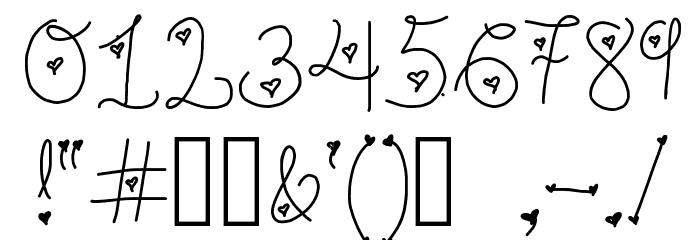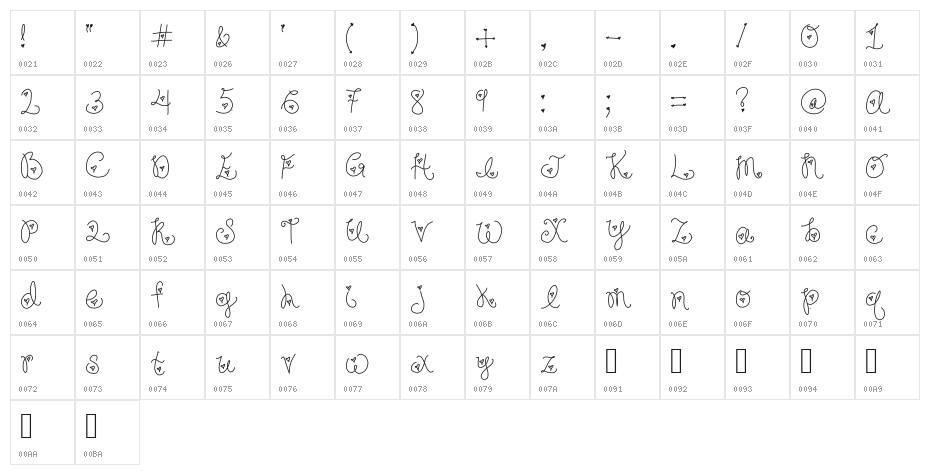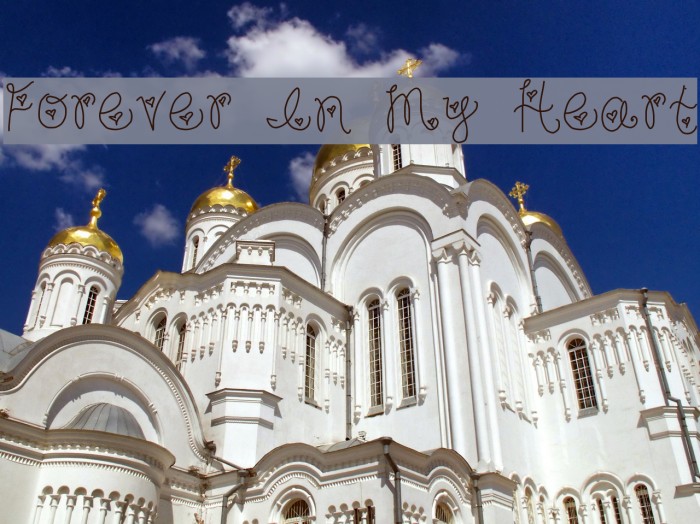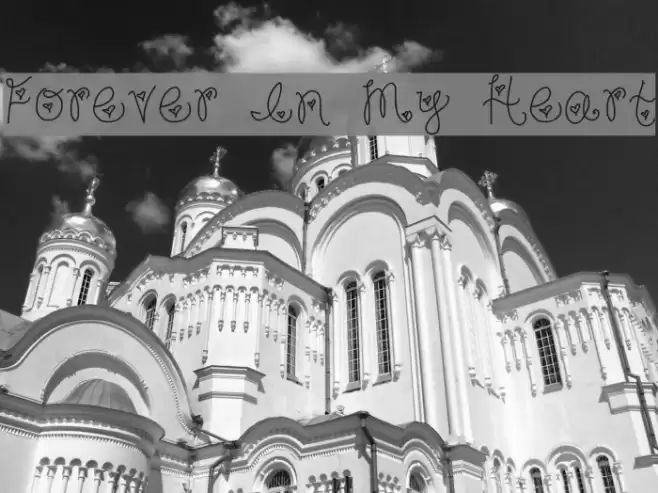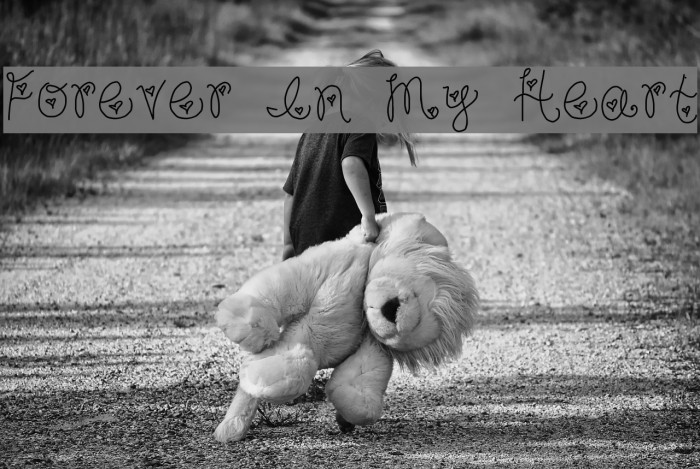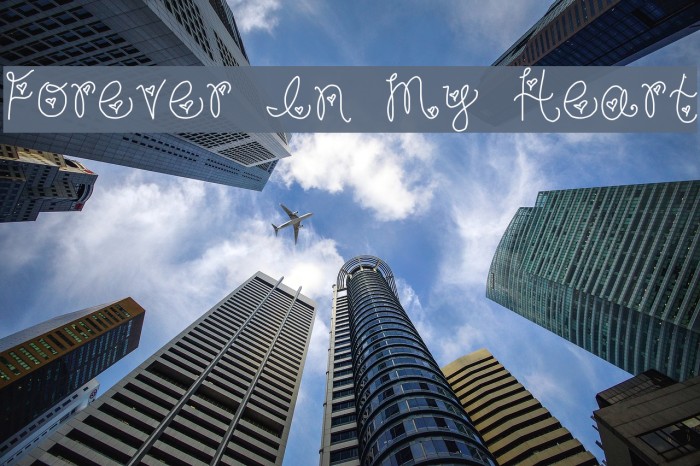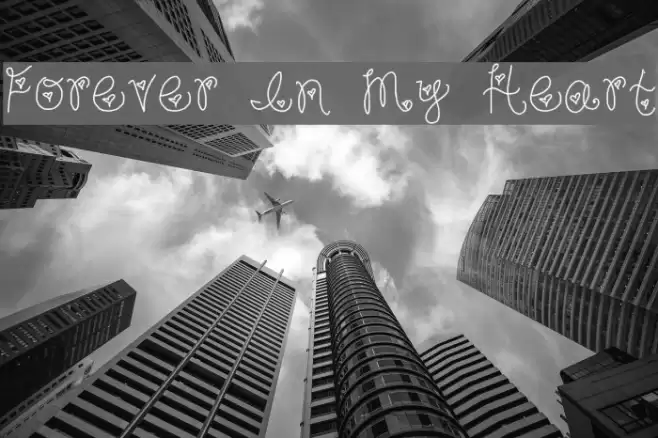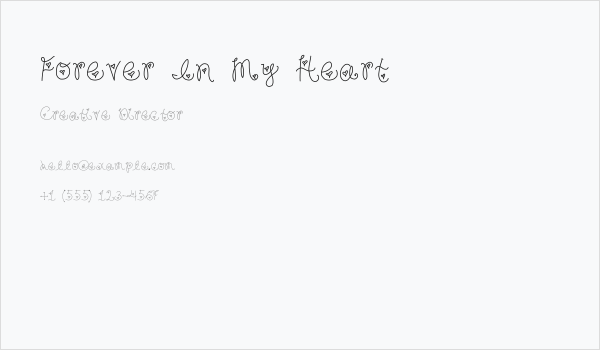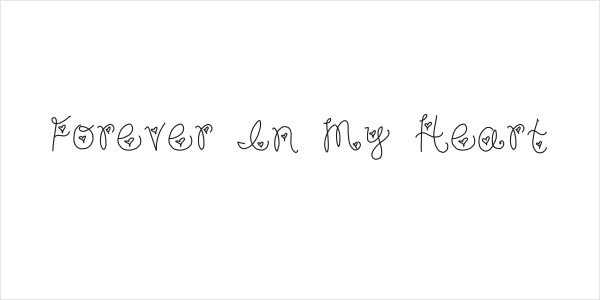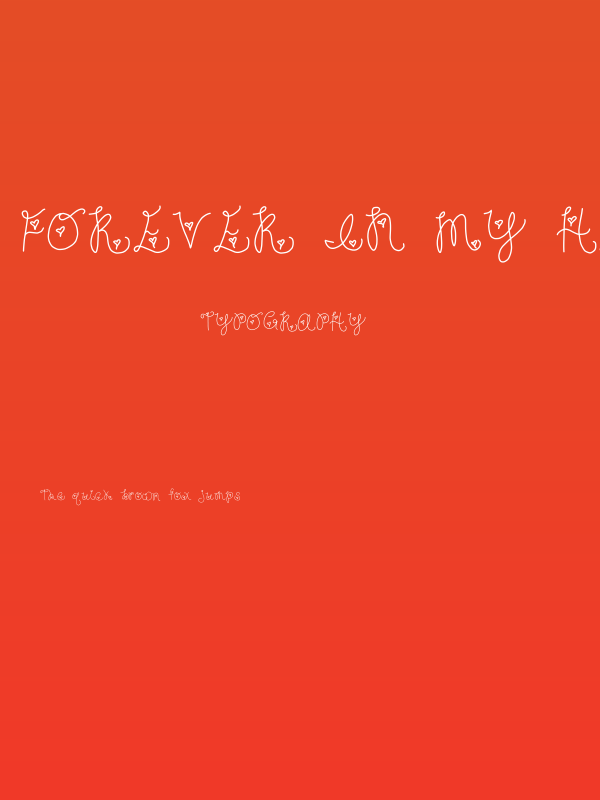
Forever In My Heart Font
Forever In My Heart Description
This whimsical and romantic font features delicate, flowing lines with charming heart motifs integrated into each character. The uppercase and lowercase letters are crafted with a playful, cursive style that adds a touch of elegance and warmth. Numbers and special characters maintain the same enchanting theme, making the font cohesive and visually appealing. The overall design is perfect for conveying love and affection, with its unique heart embellishments adding a personal touch to any text.
| Overall Style | Romantic, Whimsical |
| Use Case | Headlines, Invitations, Greeting Cards |
| Proposed Projects | Ideal for wedding invitations, romantic greeting cards, personalized gifts, and love-themed branding. |